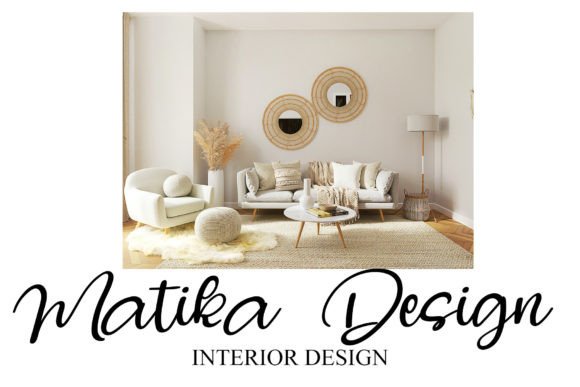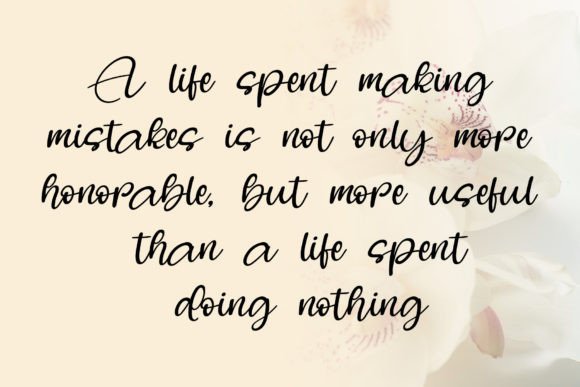
Introduction to Muddy Font
Have you ever been in the middle of a creative project, pouring your heart and soul into every detail, only to feel like something’s missing? That’s when you stumble upon the perfect design resource – a font that transports you to a world of elegance and whimsy. For designers, finding that elusive combination of style and sophistication can be a game-changer. And that’s exactly where the Muddy Font comes in.
This sweet and cursive handwritten font is a breath of fresh air in the world of typography. With its gentle curves and romantic flair, it’s the perfect addition to any creative project. Whether you’re working on a branding campaign, designing a wedding invitation, or crafting a lookbook for your latest fashion collection, the Muddy Font is sure to add a touch of high-quality sophistication to your design.
Key Features of Muddy Font
- High-quality design: Muddy Font is a premium font designed for creative projects, ensuring a professional look and feel.
- Unique characteristics: Muddy Font features a unique blend of modern and vintage elements, making it an ideal choice for creative projects that require a distinctive look.
Honest Review: Muddy Font
I recently stumbled upon the Muddy Font, and I must say it’s been a game-changer for my creative projects. This font is a fantastic addition to any designer’s toolkit, offering a high-quality, versatile solution for a variety of design needs.
Here are some of the things I love about the Muddy Font:
- ✨ Versatile and easy to use
However, I do have a few minor complaints:
- ⚠️ Limited customization options, which may be a concern for designers who prefer more control
- ⚠️ Not ideal for projects that require a bold, attention-grabbing font
Overall, I’m thoroughly impressed with the Muddy Font. Its high quality and versatility make it a valuable addition to any designer’s collection. While it may not be perfect, it’s an excellent resource for designers working on creative projects.
Muddy Font
Introduction to Muddy Font
Muddy Font is a versatile and high-quality design resource ideal for creative projects. Its unique style and transparent background make it a great addition to any design.
Tips for Getting the Most Out of Muddy Font
To get the most out of Muddy Font, use it in conjunction with other design elements to create a cohesive look. Experiment with different font sizes and colors to find the perfect combination.